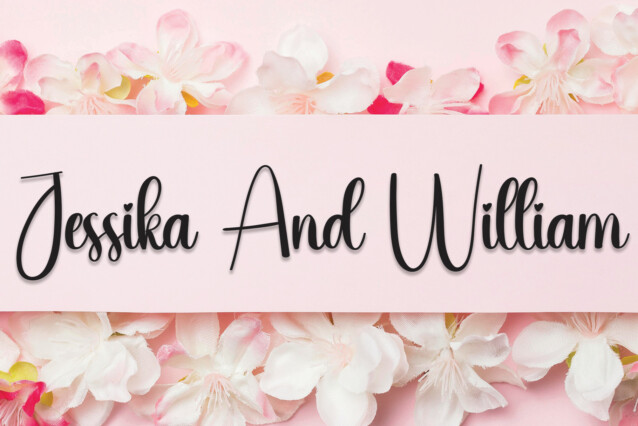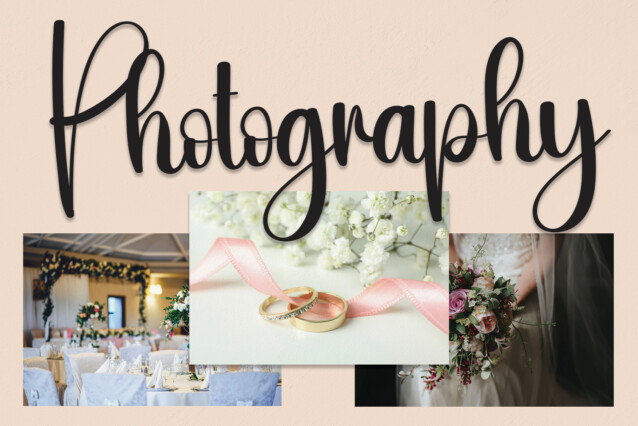
Blessed Script Typeface
Blessed Script Typeface is a delicate handwritten font carefully crafted for a cool and unique design. This font can be used to write letters, invitations, food products, titles and more.